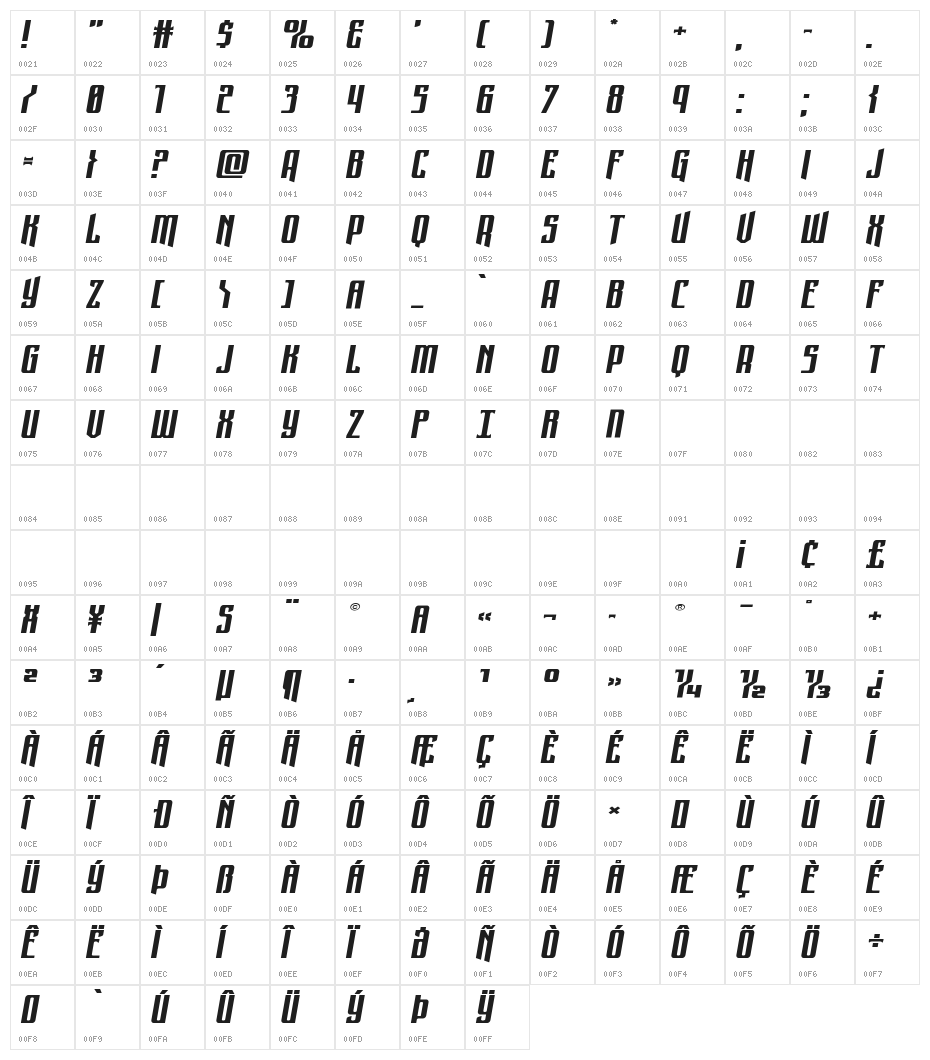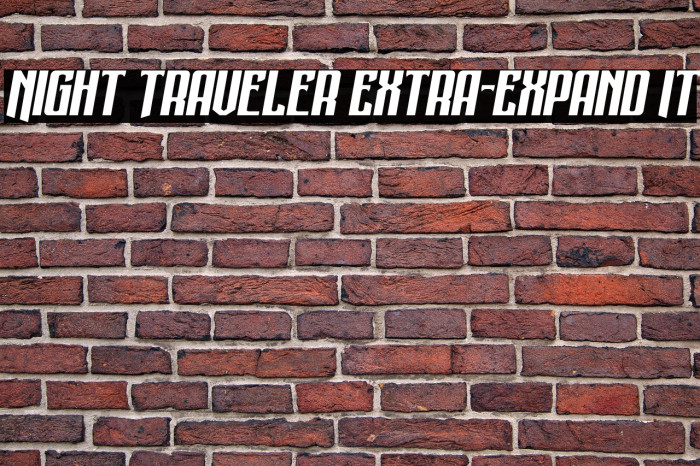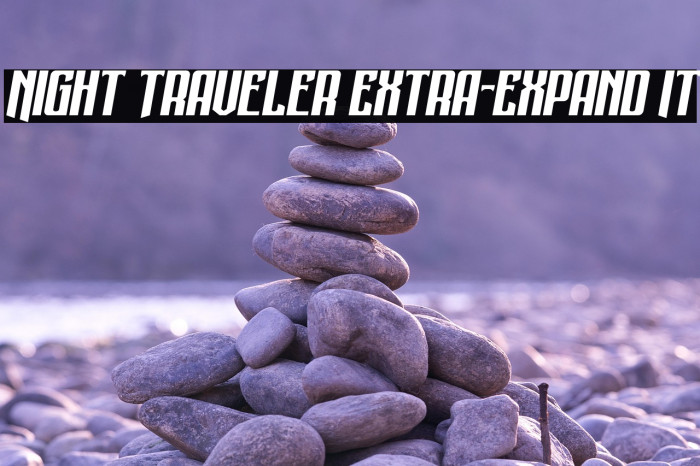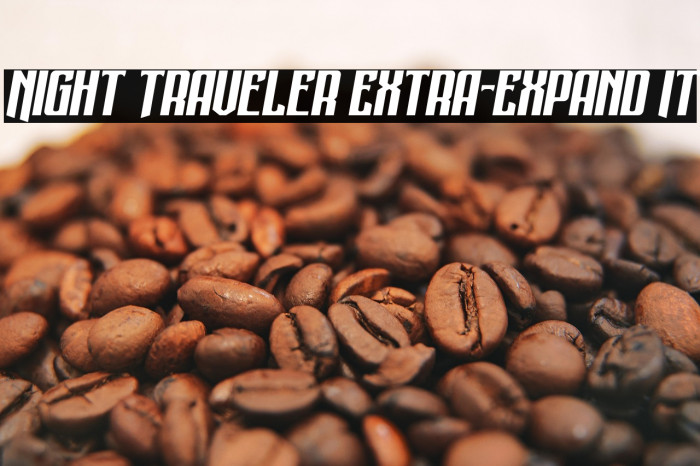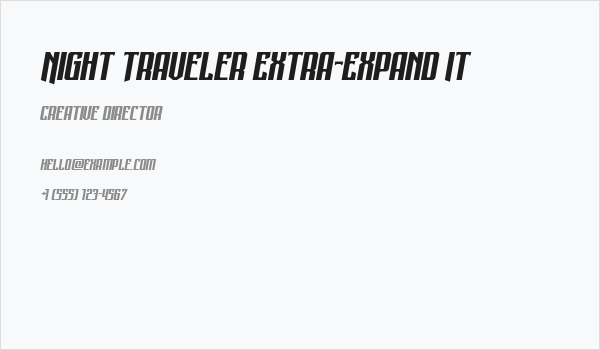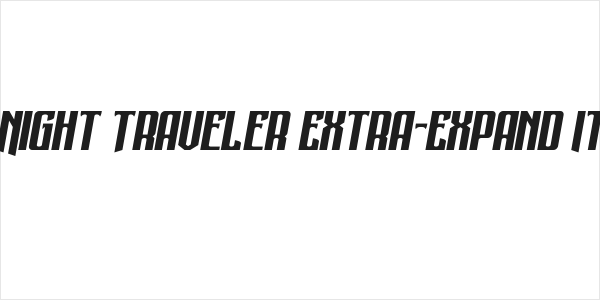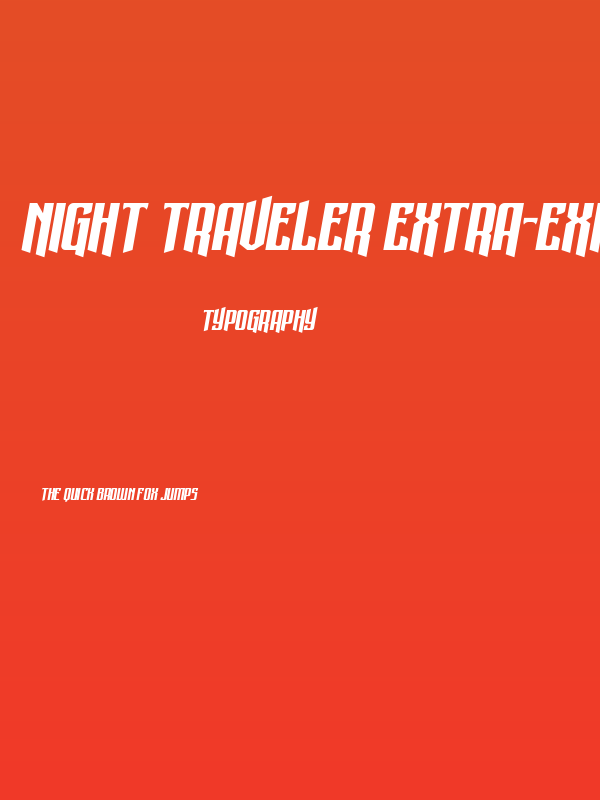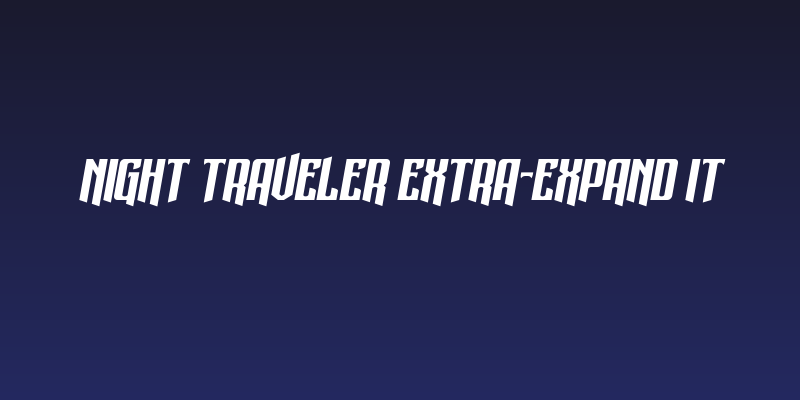
Night Traveler Extra-Expand It Font
Night Traveler Extra-Expand It Description
This font features a bold and dynamic design with a distinctly modern and futuristic flair. The characters are sharply angled, giving them a sense of motion and energy. The uppercase letters are particularly striking, with a tall and narrow form that emphasizes their verticality. The lowercase letters maintain this angular style, ensuring consistency throughout the typeface. Numbers and special characters are designed with the same boldness, making them stand out effectively. The overall impression is one of strength and forward momentum, making it suitable for projects that require a strong visual impact.
| Proposed Projects | Ideal for sports branding, futuristic designs, posters, and headlines that require a strong visual impact. |